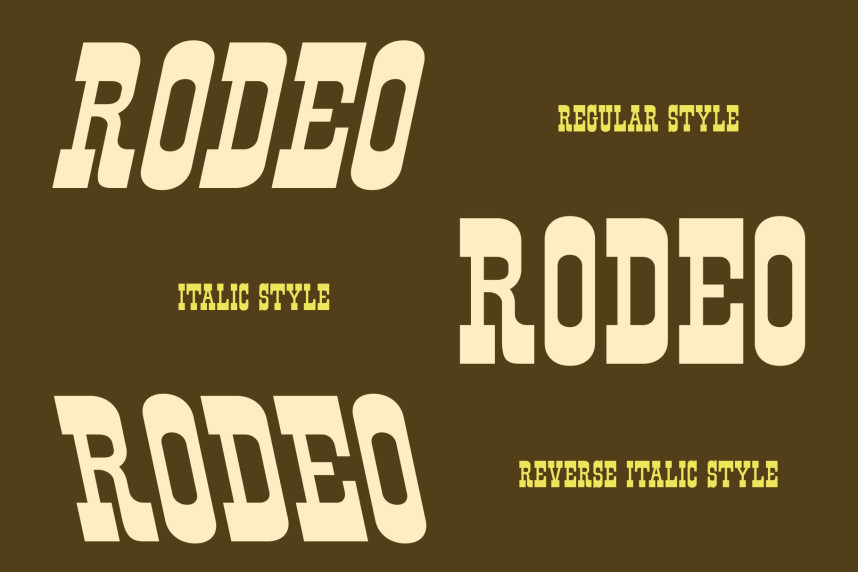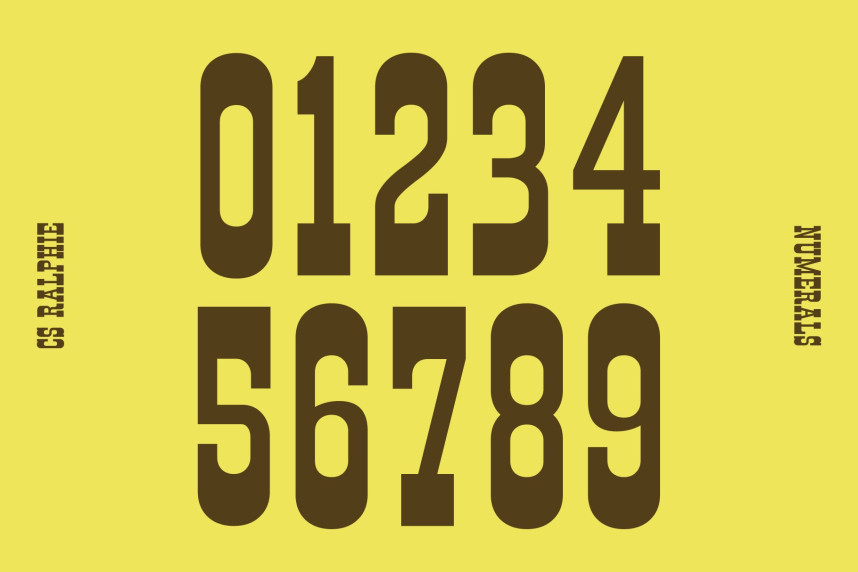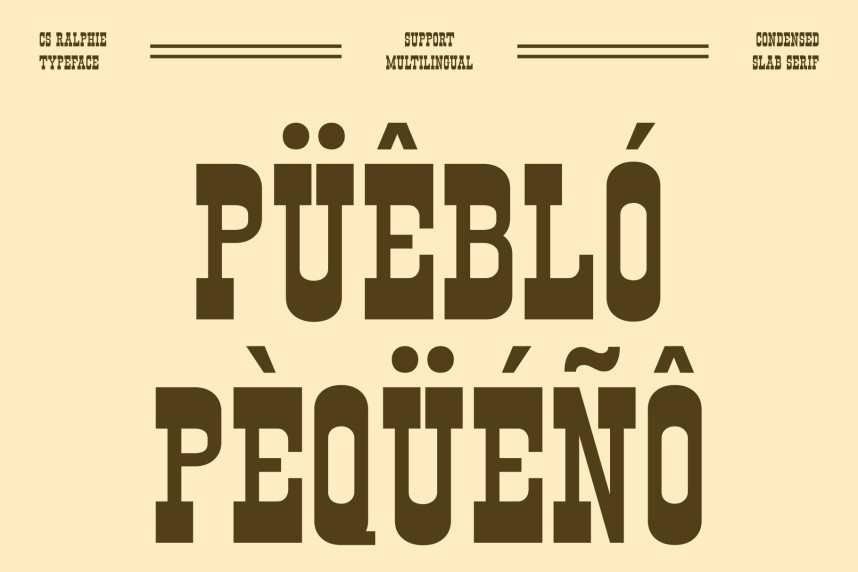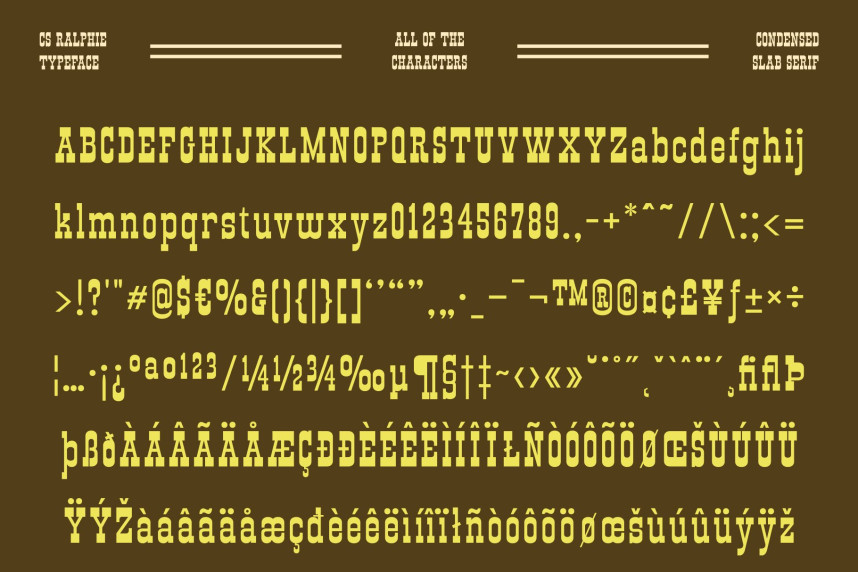
CS Ralphie Font
CS Ralphie Font – Western Display Font with Slab Serif and Reverse Contrast Character Rooted in Old Western Spirit. This is a striking display font that channels the raw spirit of the old Western era, inspired by vintage frontier signage, saloon posters, and rugged hand-painted lettering. Its strong slab serif construction delivers a solid, grounded presence, while the reverse contrast adds a distinctive visual twist that immediately sets it apart.